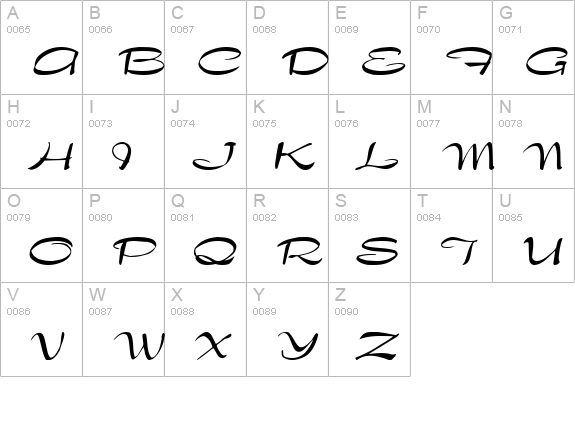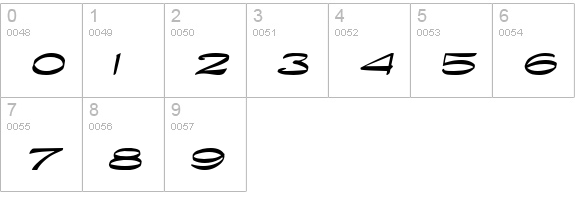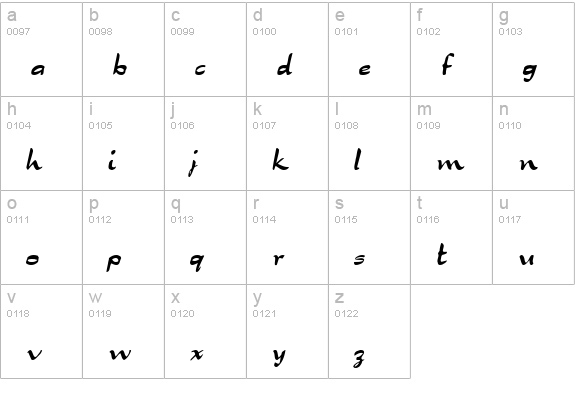
DragonwyckCondensed Italic Font Details
DragonwyckCondensed Italic is a distinctive, italic variant in the DragonwyckCondensed typeface family \xE2\x80\x94 well suited to design and typography projects.
DragonwyckCondensed Italic font is a sleek and sophisticated typeface designed for modern design projects. Its italic style adds a touch of elegance and flair to any text, making it perfect for adding a touch of sophistication to your work. The condensed design allows for more text to fit into tight spaces without sacrificing readability. Best of all, DragonwyckCondensed Italic font is available for free download at FontsMarket.com, making it accessible to all designers and creatives looking to elevate their projects with a touch of class. Don't miss out on this stunning font that will surely make a statement in your designs.